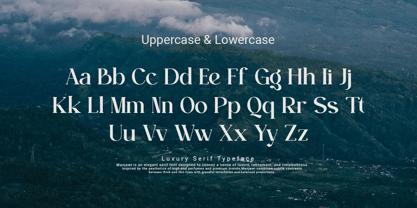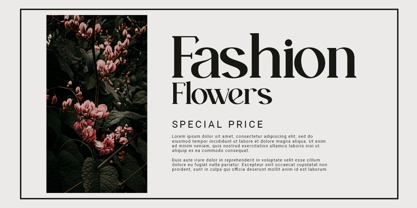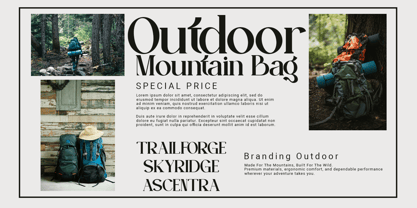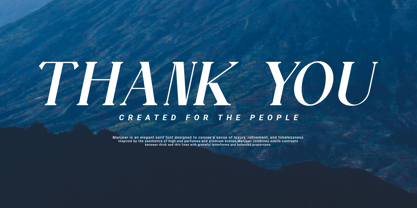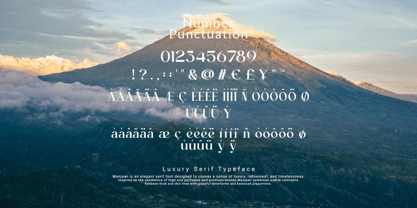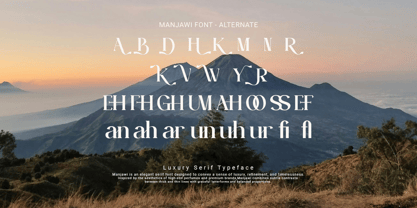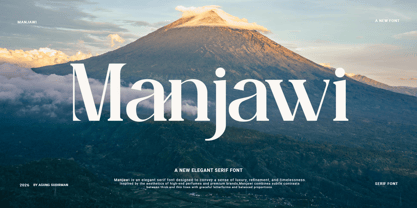
Manjawi
by Agung Sudirman
The Manjawi Font Family was designed by Agung Sudirman and published by Agung Sudirman. Manjawi contains 2 styles and family package options. More about this family
Manjawi is a distinctive typeface inspired by the rich artistic heritage, timeless elegance, and cultural sophistication of Java, thoughtfully blending traditional ornamental influences with contemporary design principles to create a refined visual identity that feels both authentic and modern, making it an excellent choice for luxury branding, premium packaging, editorial layouts, logo design, invitations, fashion campaigns, creative advertising, and a wide range of professional design projects that seek to convey craftsmanship, heritage, exclusivity, and enduring aesthetic appeal through beautifully crafted letterforms.